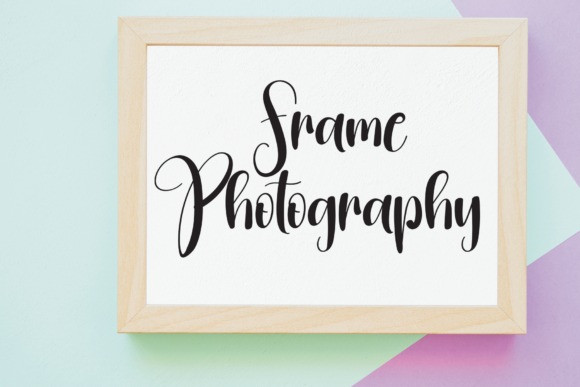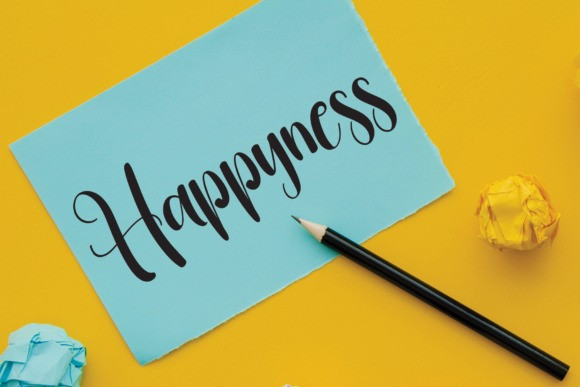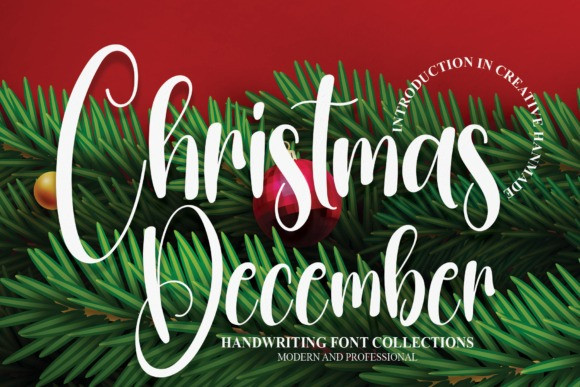
Christmas December Font
Christmas December Font is a luxurious and beautifully flowing handwritten font. Use it to create outstanding wall displays, wedding invitations, social media post logos, advertisements, product packaging, product designs, labels, photography, watermarks, invitations, and stationery.